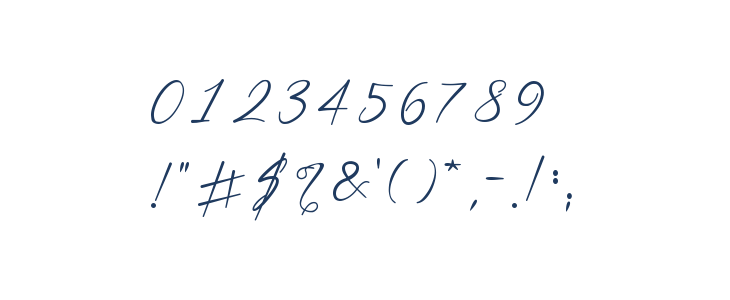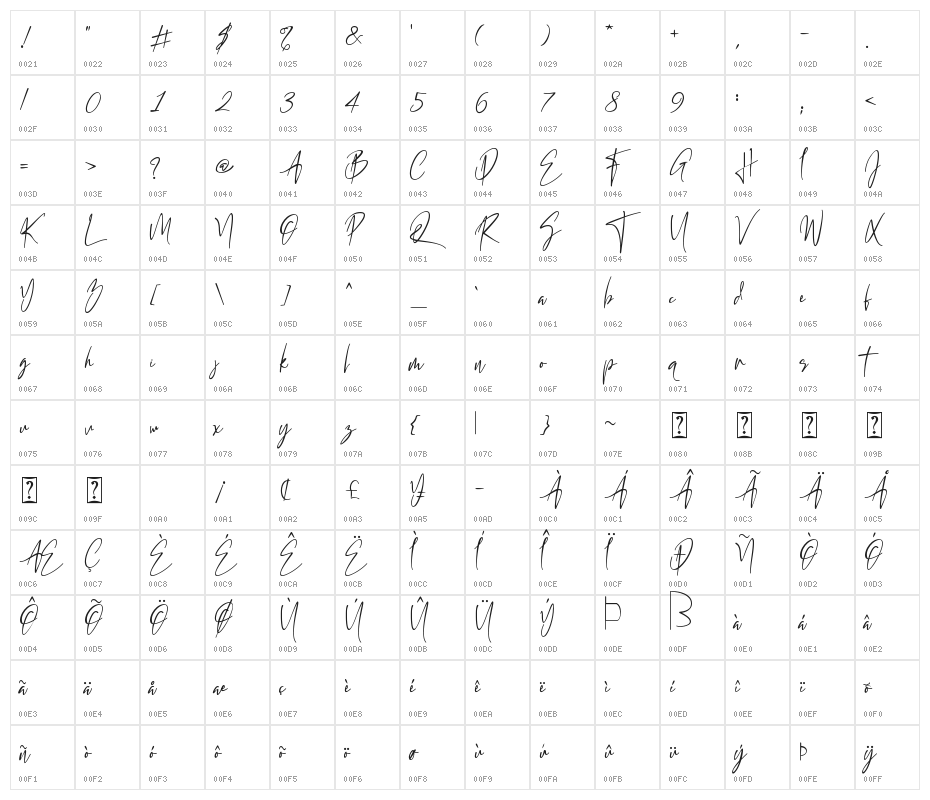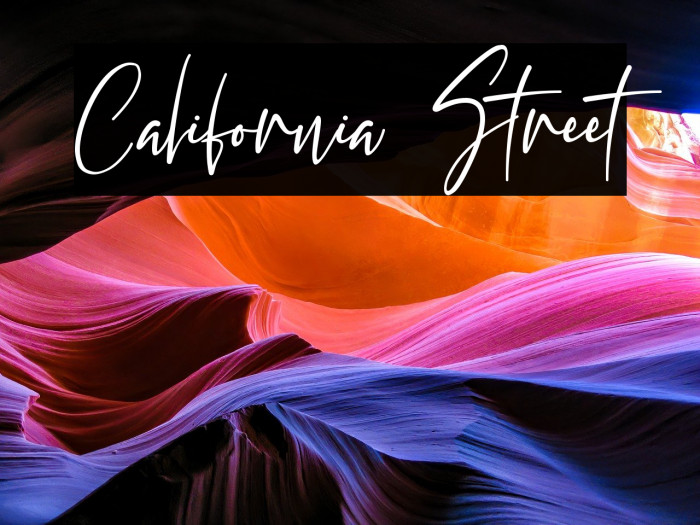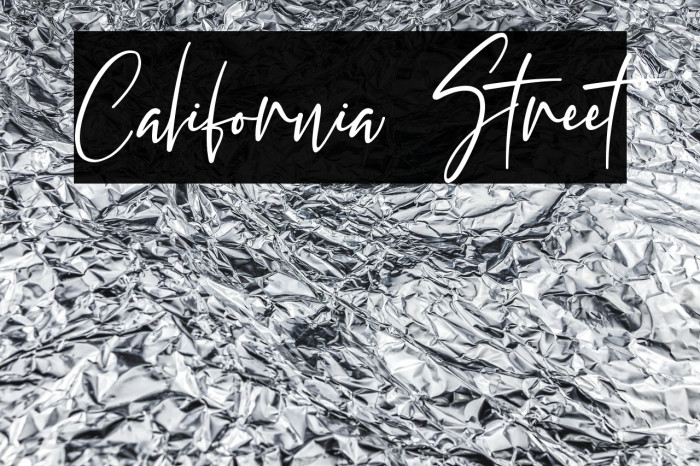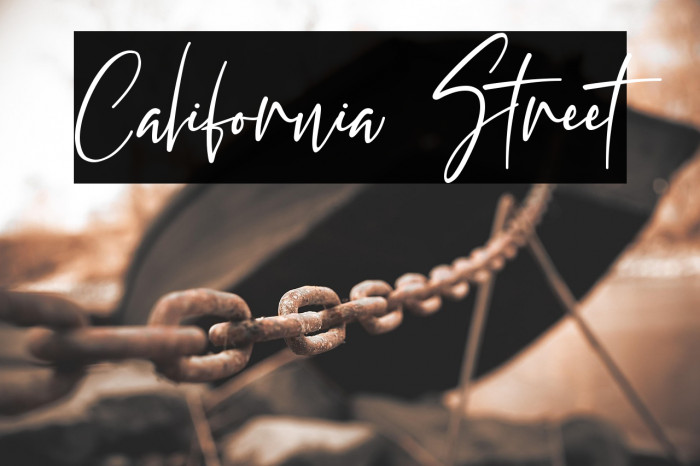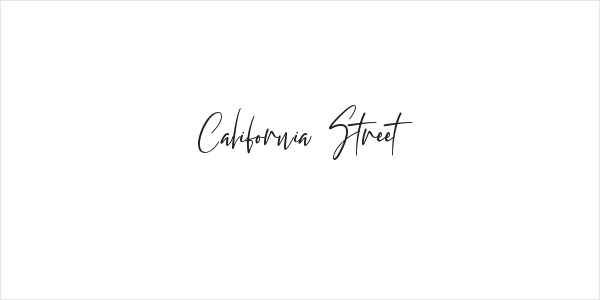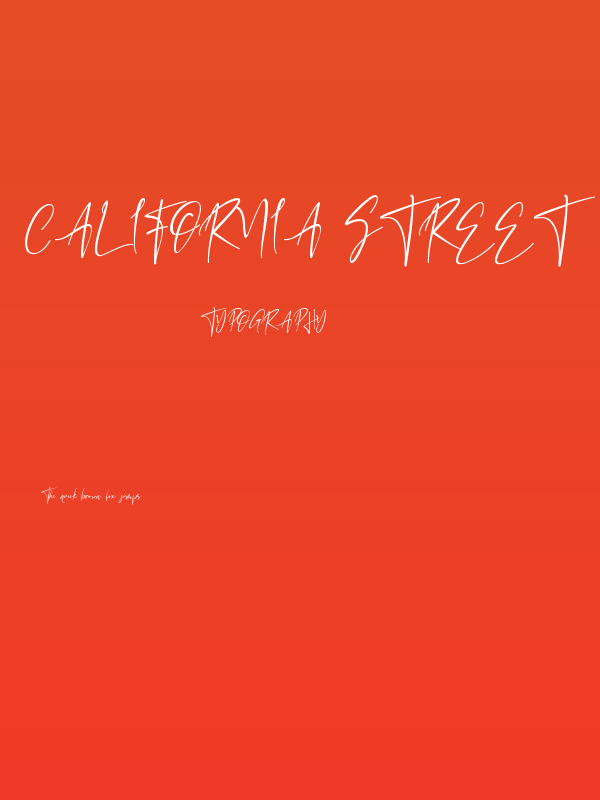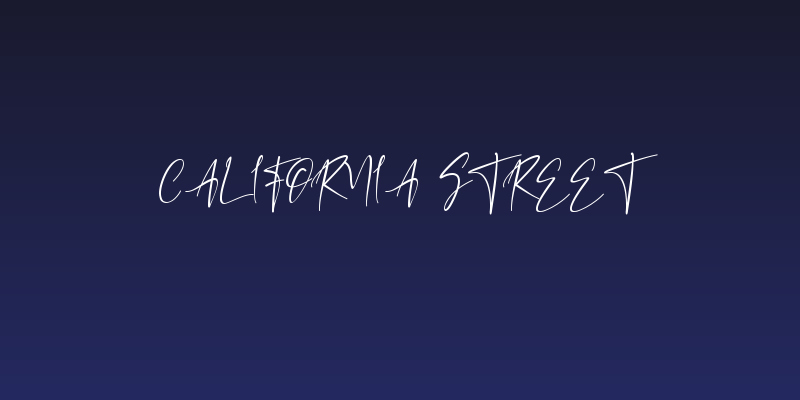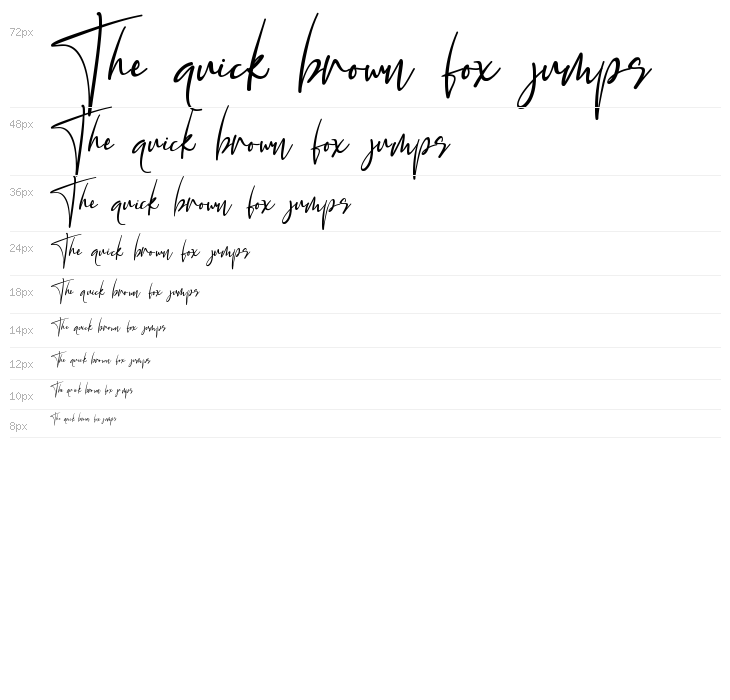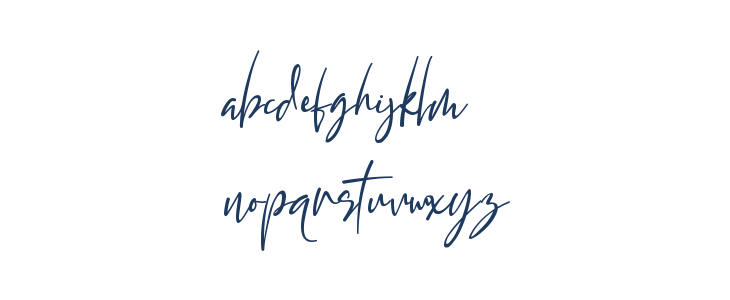
California Street Font
California Street Description
This font exudes a lively and expressive character, with its handwritten style that mimics the fluidity and spontaneity of natural handwriting. The uppercase letters are bold and dynamic, featuring elongated strokes and varying line thicknesses that add a sense of movement and energy. The lowercase letters maintain a consistent flow, with smooth curves and loops that enhance readability while retaining the font's artistic flair. Numbers and special characters are crafted with the same attention to detail, ensuring a cohesive look across all elements. The overall design is both elegant and casual, making it versatile for various creative applications.
| Proposed Projects | Ideal for greeting cards, invitations, branding, and social media graphics. |